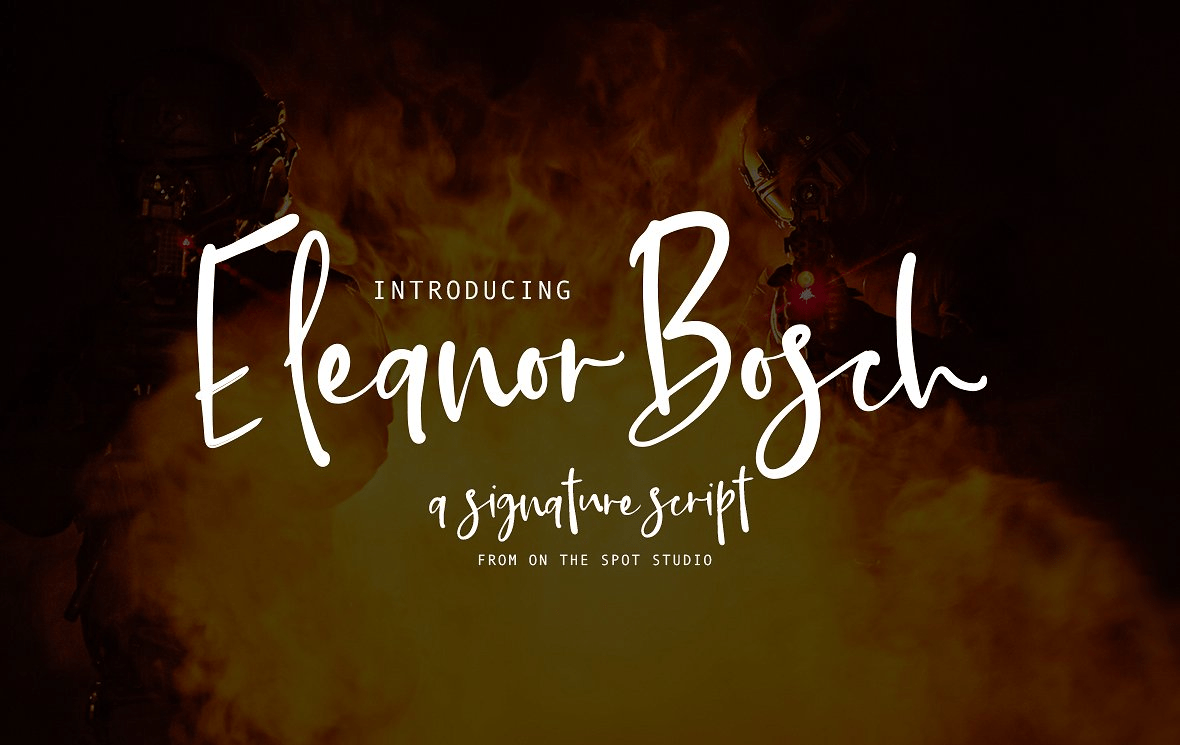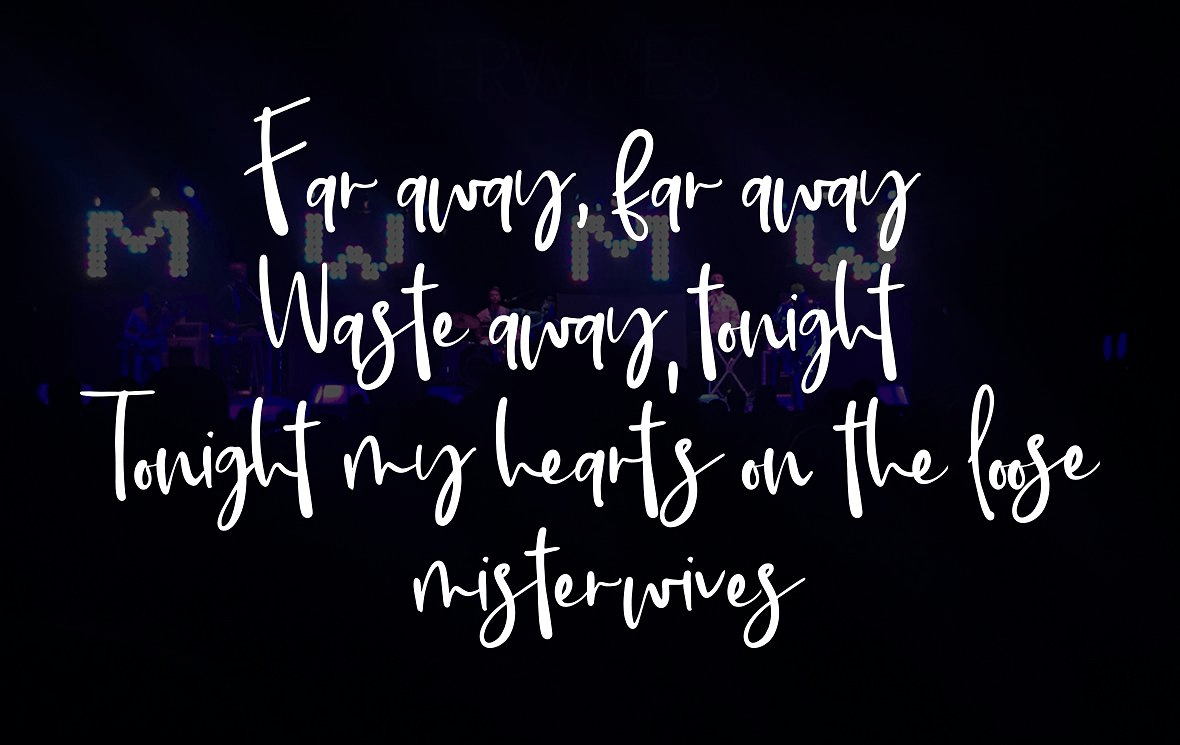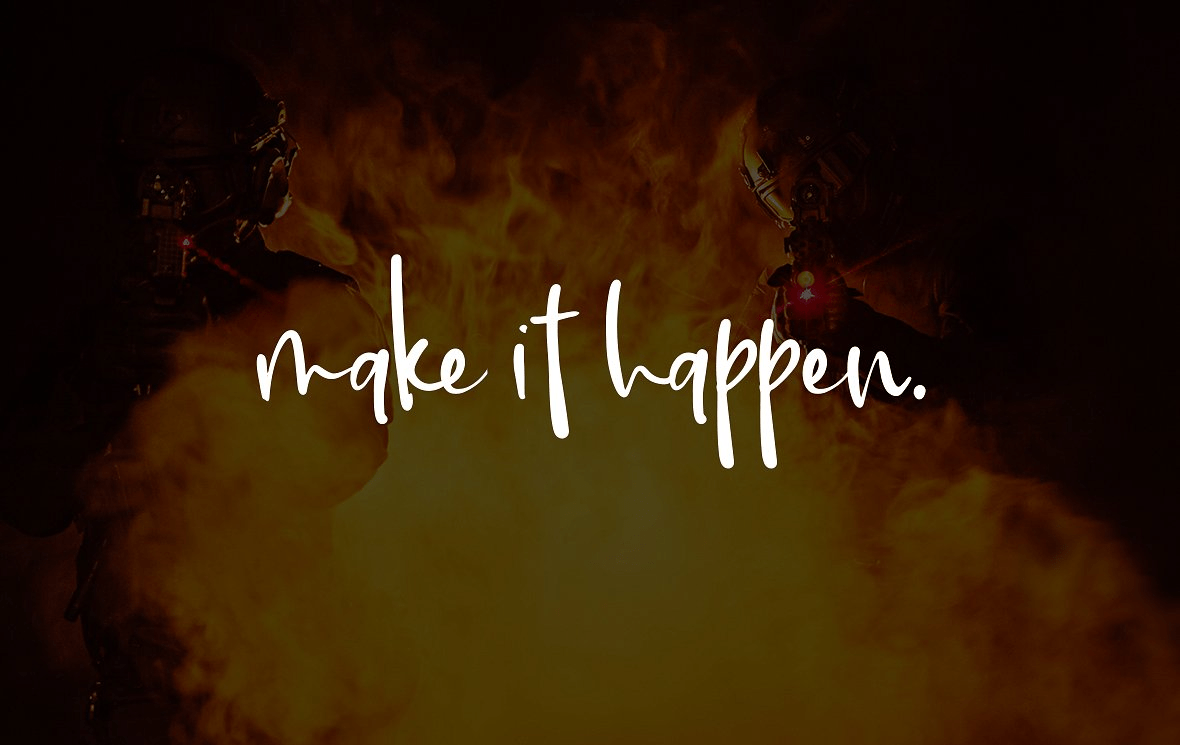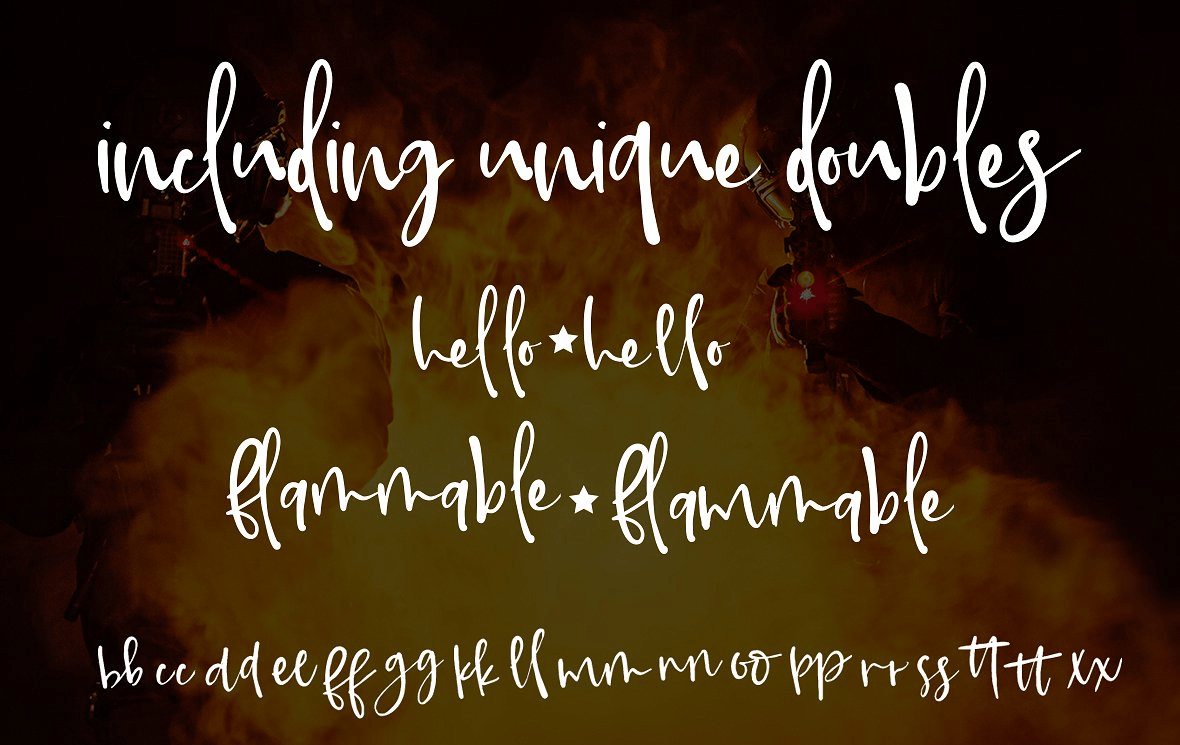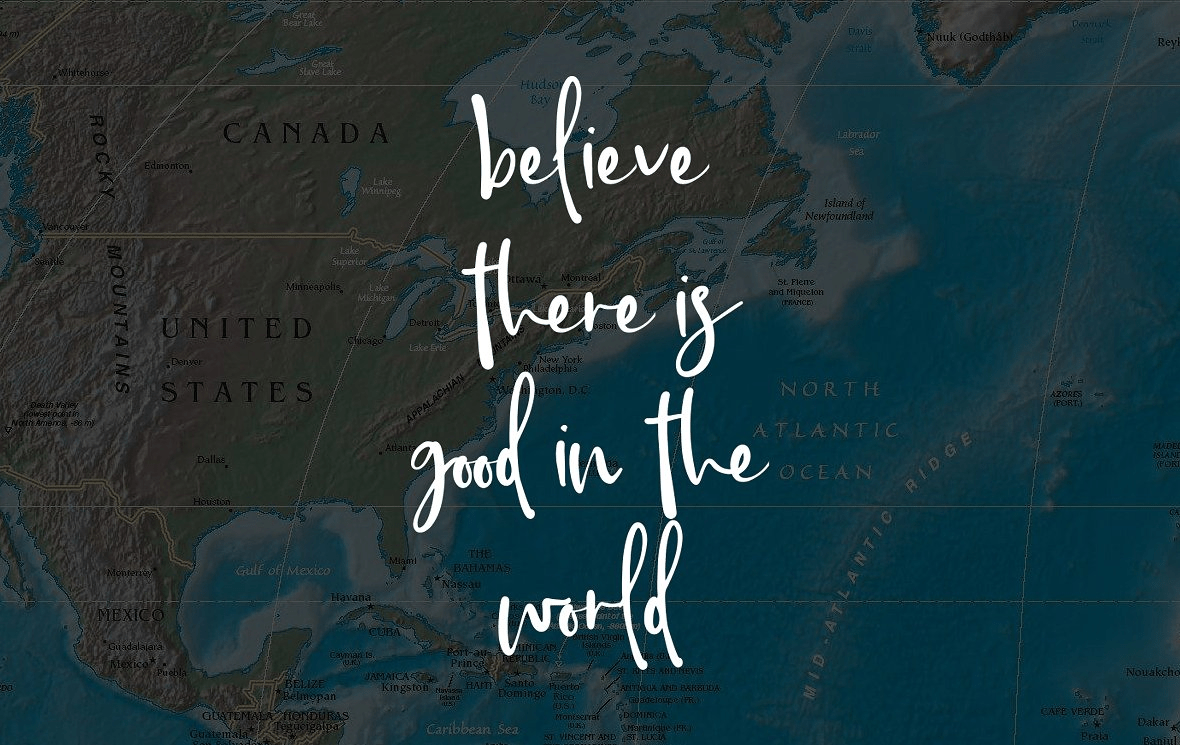
Eleanor Bosch
Say HELLO to Eleanor Bosch. Typeface inspired by one of my favorite novelists. Eleanor is a super loose, script style font that gives you that feel of jotting something down quickly, yet staying classic and easy to read. Includes extras such as double lits, as well as some accents (there will be more released soon!) I plan to update this font occasionally, hoping to give it more versatility for you!